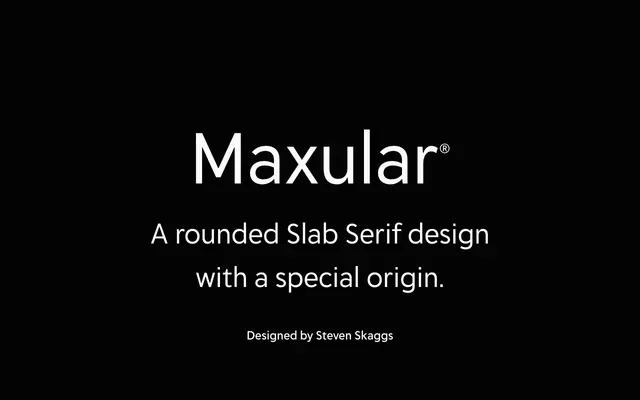
Maxular
A rounded slab serif family by Steven Skaggs, notable for its Rx variant developed through clinical trials to aid readers with macular degeneration.
Six years in development, the family splits into two branches: the standard Maxular in six weights with italics for everyday use, and Maxular Rx, a pair of upright cuts expressly designed for readers with macular degeneration. The Rx variant incorporates large x-heights, open letter spacing, built-in generous line spacing and conventional letterforms proven in two independent clinical trials to maintain reading speed under the visual distortions the condition causes. Both branches cover over 700 glyphs with support for 305 languages.
Explicitly described as a rounded slab serif; all stroke terminals, serifs and junctions are rounded, placing it firmly in the rounded slab category rather than a traditional bracketed or geometric slab.